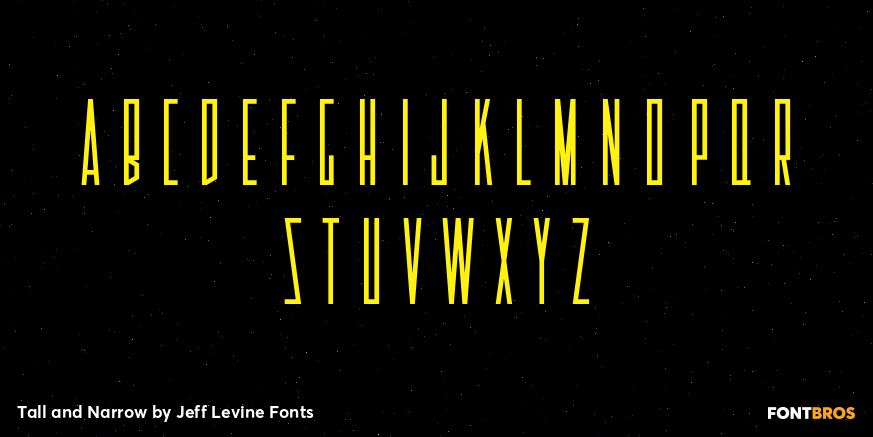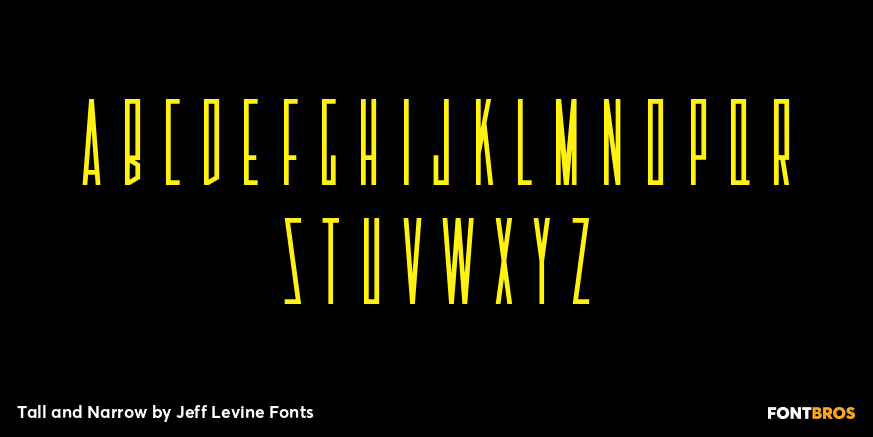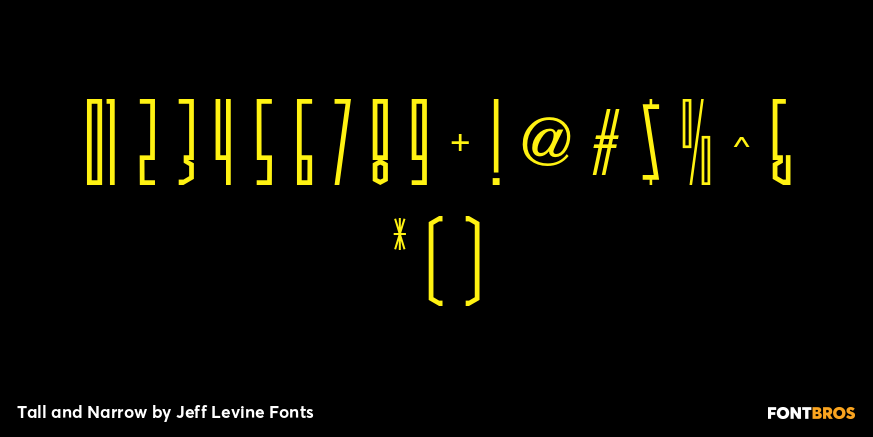
Tall and Narrow
"Let Me Call You Sweetheart" was one of the most popular songs of the early 20th Century, and a piece of vintage sheet music for this tune had its title hand lettered in a square, narrow block lettering style.
With a few adjustments and adaptations, this led to the creation of Tall and Narrow JNL, a digital version of the type design which is a perfect alternate to the more conventional condensed faces.